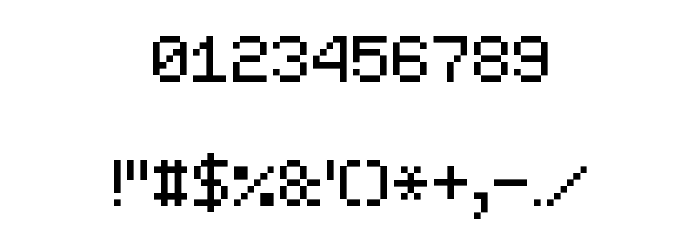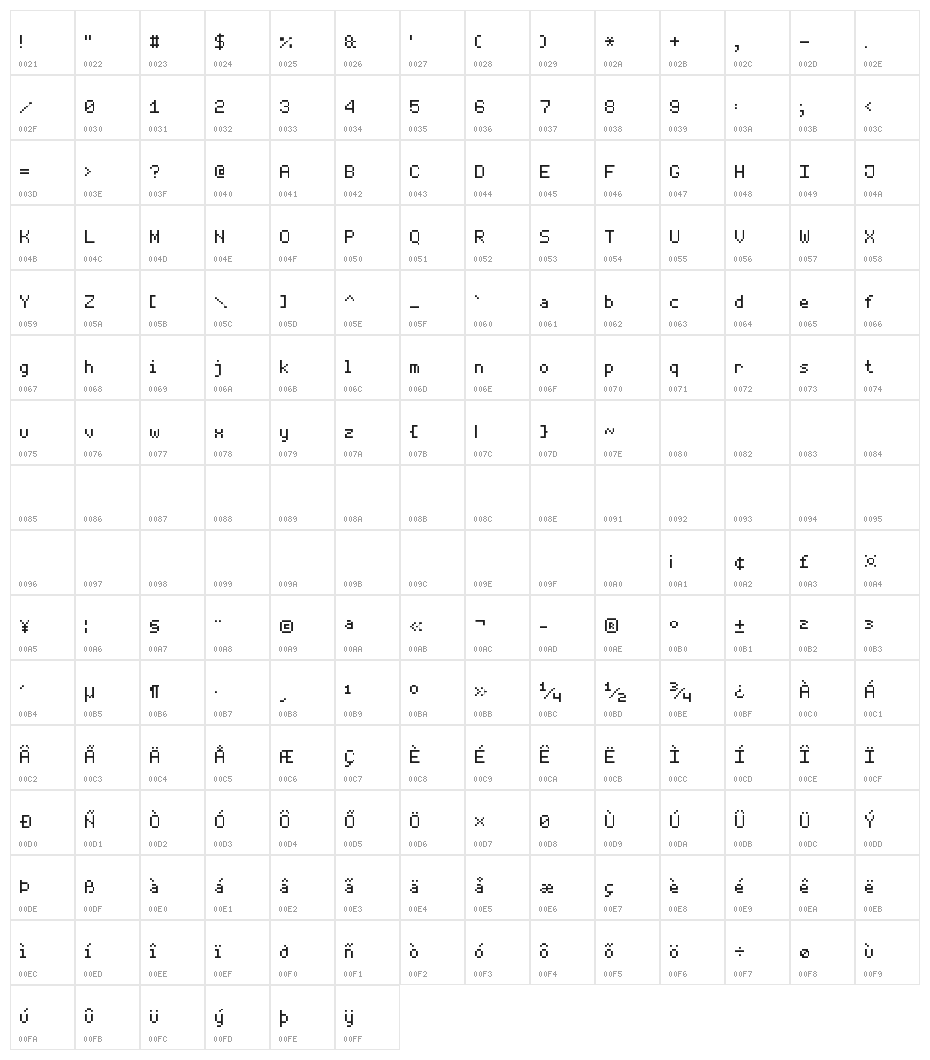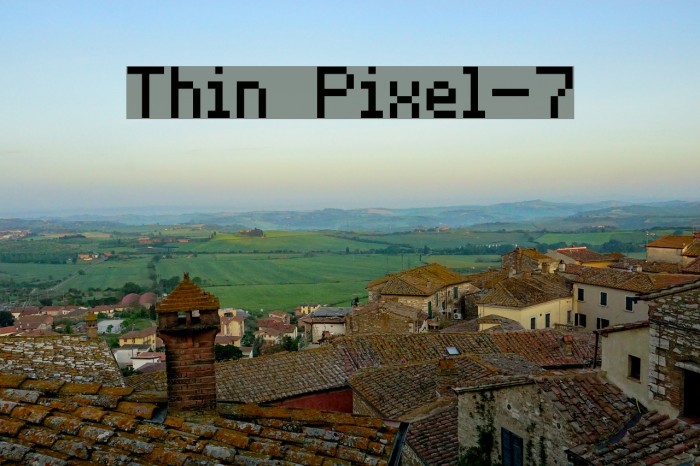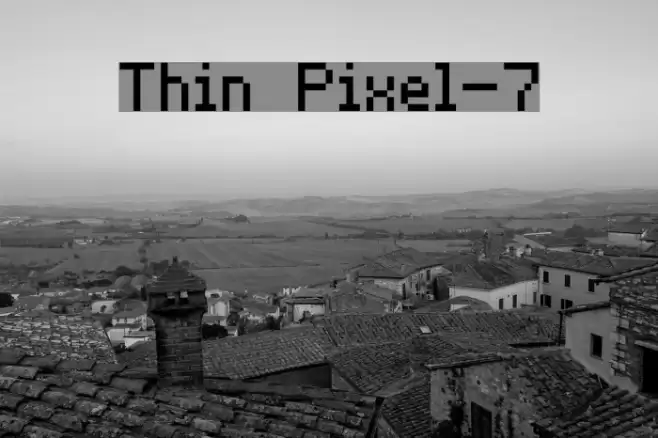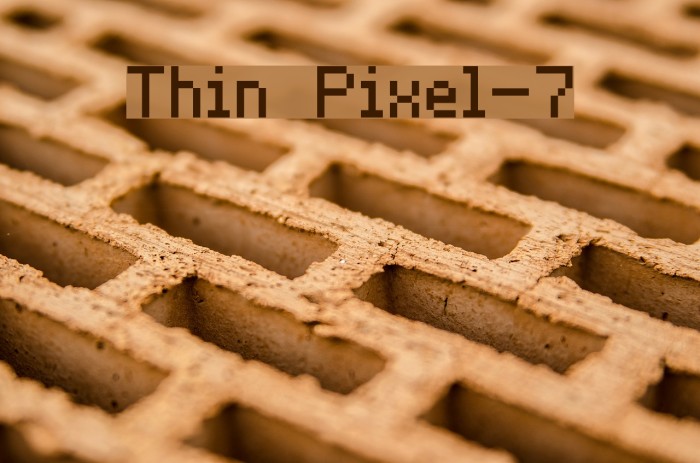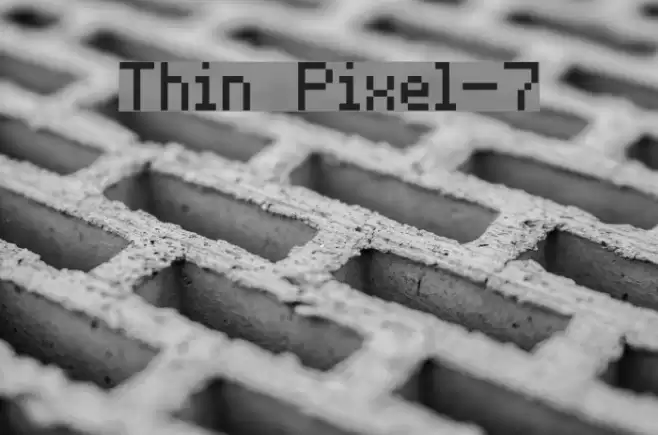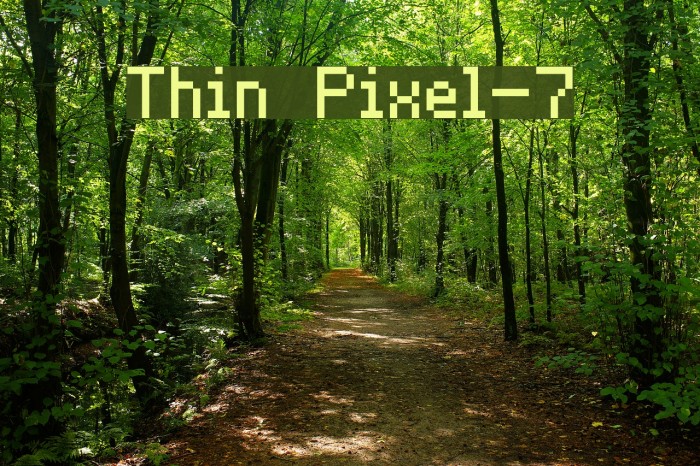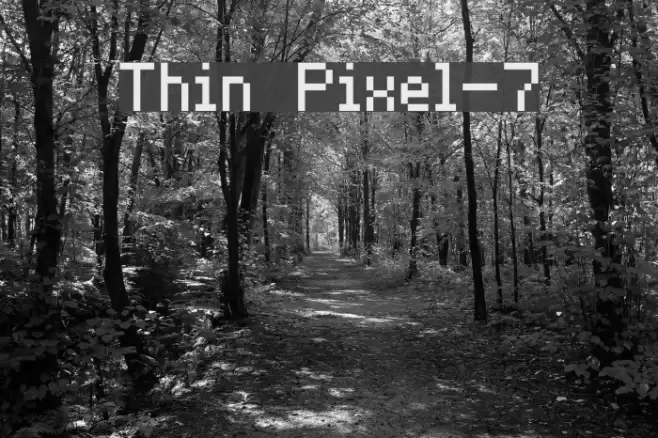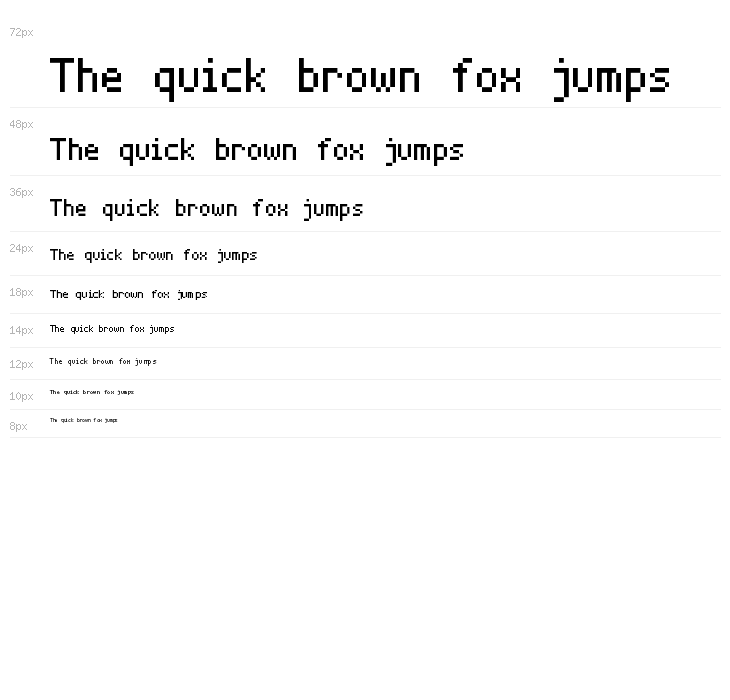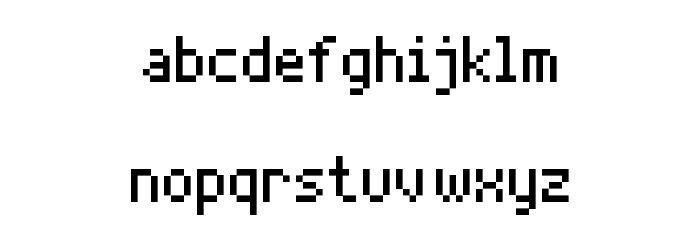
Thin Pixel-7 Font
Thin Pixel-7 Description
This font features a pixelated, blocky design reminiscent of early digital displays and retro video games. Each character is constructed with a grid-like precision, giving it a distinctly digital and nostalgic feel. The uppercase and lowercase letters maintain a consistent height, contributing to a uniform appearance. The numerals and special characters follow the same pixelated style, ensuring a cohesive look across all glyphs. This font's simplicity and clarity make it ideal for projects that aim to evoke a sense of nostalgia or a retro digital aesthetic.
| Use Case | Headlines, Logos, Digital Art |
| Proposed Projects | Ideal for retro video game designs, digital art projects, tech-themed posters, and nostalgic branding. |